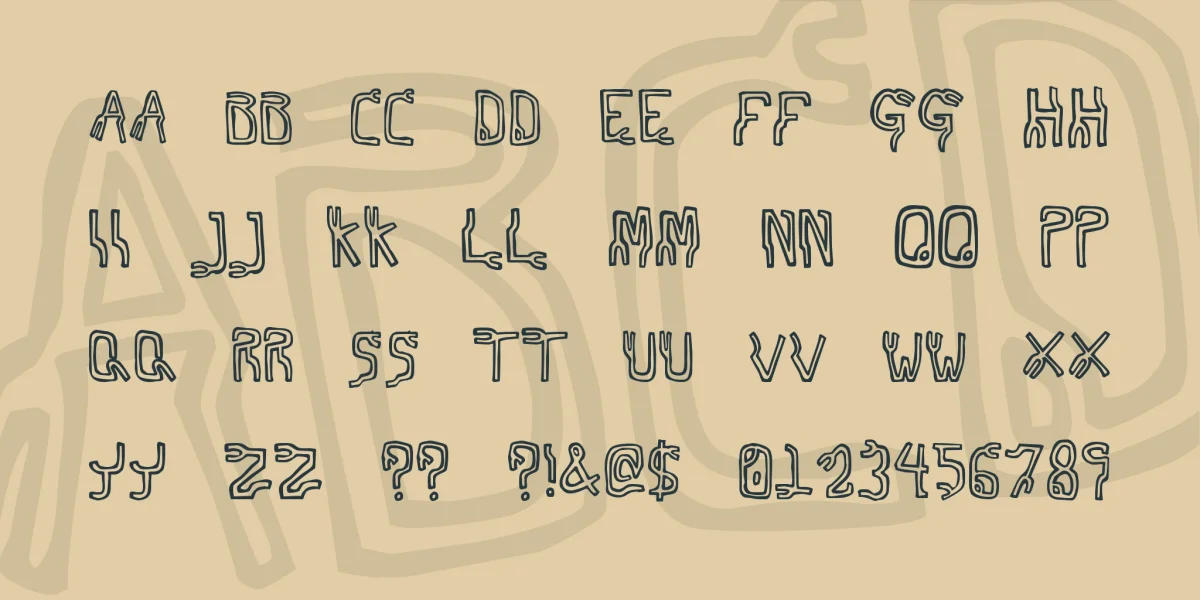
(All keyboard characters (caps=lower), some foreign/special) looks kind of like a techno "Valium" (see fonts93). Evil and futuristic. Don't hurt yourselves!